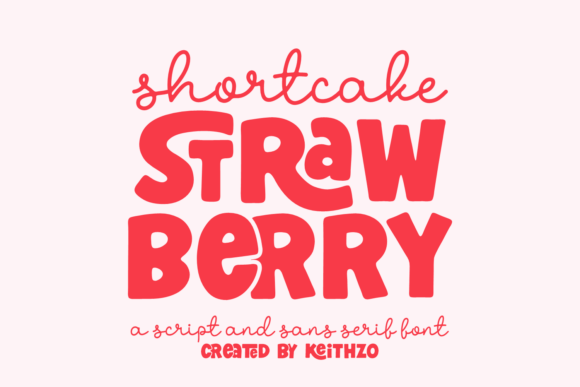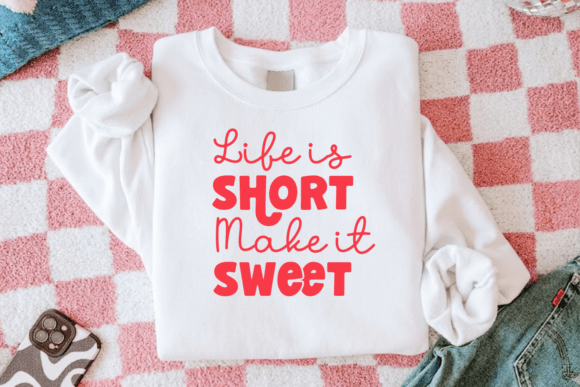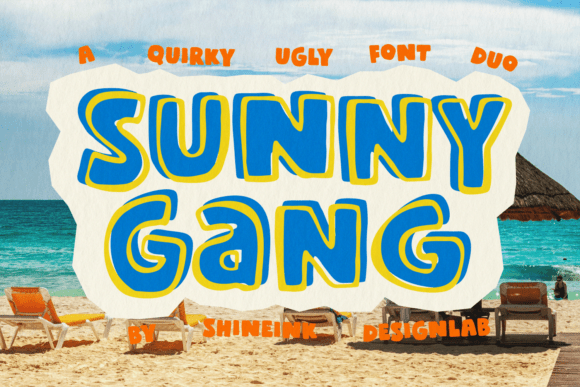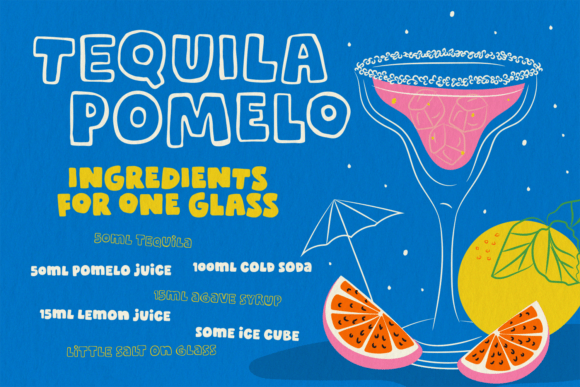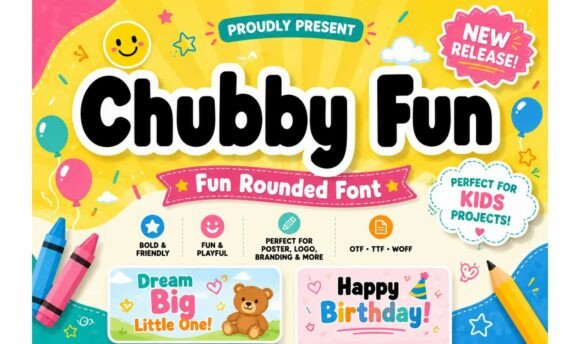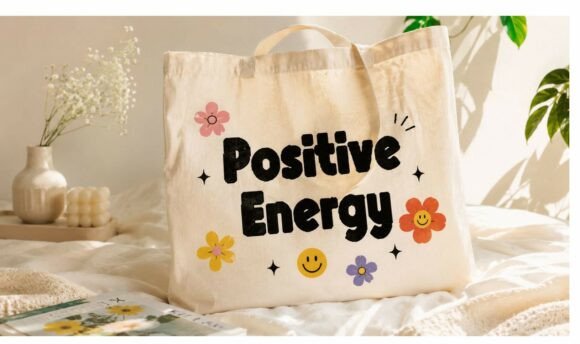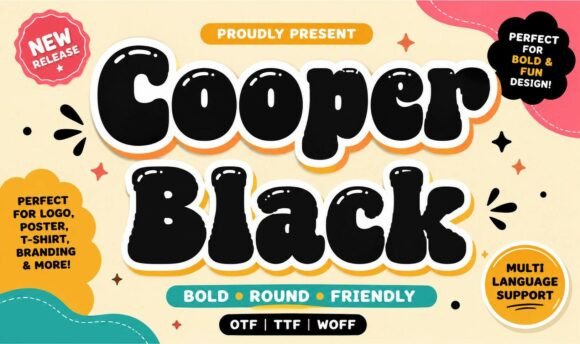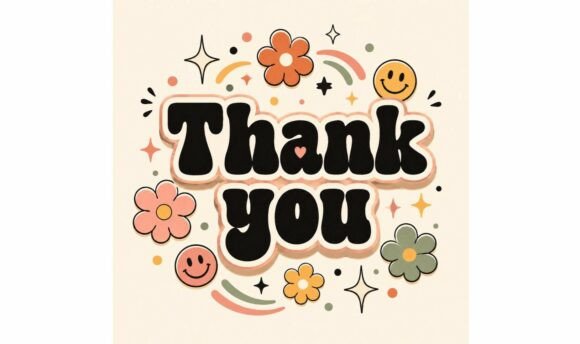
23 Unique Display Fonts to Elevate Your Creative Projects
Typography is the heart of visual communication. Whether you are building a brand identity or designing social media graphics, choosing the right typeface changes everything. In this guide, we explore a hand-picked collection of 23 high-quality design assets that will transform your digital workspace.
Why You Need Premium Display Fonts
Finding the perfect style can be challenging, but these professional-grade options make it simple. From retro-inspired aesthetics to whimsical hand-lettered styles, this collection of Display Fonts offers versatility for every designer. Let’s dive into our curated list of 23 standout typefaces.
Shortcake Strawberry Font
Shortcake Strawberry is a charming and playful addition to the design world, perfect for crafting vibrant and memorable projects. Its unique aesthetic brings a sense of joy and whimsy to your work, helping your creations stand out uniquely.
Sunny Gang Font
Sunny Gang is a playful and energetic typeface perfectly suited for children’s designs, branding, and eye-catching headlines. Its unique character shapes bring a sense of fun and dynamic flair to your creative projects.
Chubby Fun Font
Chubby Fun is a charming and playful typeface, perfect for children’s projects, greeting cards, and eye-catching branding. Its bubbly, cartoonish letterforms inject a sense of joy and whimsy into any design.
Cooper Black Font
This iconic option features soft, rounded aesthetic appeal and vintage charm, making it an essential choice for creating bold, retro-inspired headlines. As you build your graphic assets library, having a selection of reliable Display Fonts is non-negotiable.
Wamps Font
Wamps is a unique decorative typeface, offering a dynamic aesthetic perfect for crafting eye-catching headlines and standout creative design projects.
Summer Vibes Font
This stylish typeface captures a carefree summer mood, making it an excellent choice for vibrant seasonal designs, posters, and social media branding.
Funky Orbit Font
Funky Orbit is a vibrant and dynamic choice that brings a touch of retro-futurism and playfulness to your designs, making it perfect for eye-catching headers.
Chalky Zone Font
Chalky Zone is a creative and textured typeface that simulates a realistic chalk effect, perfect for chalkboard signage, café menus, and stylish marketing projects. Many designers rely on these Display Fonts to add a tactile feel to their digital designs.
Goars Font
Goars is a stylish and modern typeface, perfectly suited for crafting creative headlines and impactful branding projects. Its unique character forms will add depth and a professional visual edge to your design work.
Mango Juice Font
This playful and energetic typeface, inspired by juicy tropical vibes, is perfect for creating vibrant headlines and eye-catching creative branding projects.
Pink Aura Display Font
Pink Aura is a sophisticated and expressive typeface designed to bring a refined aesthetic and a modern visual flair to your creative projects.
School Day Display Font
This playful, hand-lettered typeface is perfect for school-themed projects, children’s illustrations, and creative designs, bringing a sense of joy and whimsy to your work.
Daydream Melody Font
Daydream Melody is a charming typeface crafted to add a touch of whimsy and creative flair to any design project. Its unique letterforms are perfect for branding, invitations, and headlines that require a distinct visual impact.
Friction Surface Display Font
Friction Surface is a bold choice that blends raw, gritty textures with modern dynamics to deliver a distinctive visual impact. This typeface is an excellent tool for headers demand a professional edge.
Abu Dhabi Solstice Font
Abu Dhabi Solstice is a sophisticated and expressive typeface that features a unique aesthetic, making it the perfect choice for striking headlines and premium design projects.
Rapid Storm Display Font
Rapid Storm is a dynamic and powerful choice that infuses any project with high-octane energy and an edgy, bold character through its sharp geometric letterforms.
Rainbow Delight Display Font
This whimsical typeface perfectly captures a mood of joy and playfulness, adding a vibrant touch to any creative project. These are perfect for those who want their designs to pop.
Sobat Display Font
Sobat is a striking choice that blends modern aesthetics with a unique character, perfect for creating highly expressive visual projects and impactful branding.